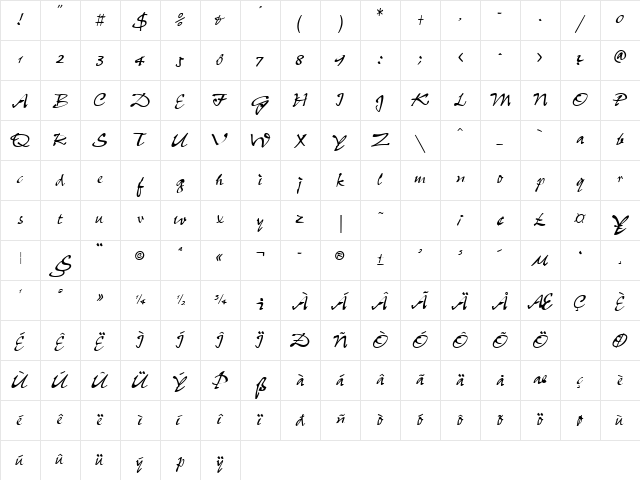
WheedleSSK Regular
WheedleSSK Family
Design Context for WheedleSSK
WheedleSSK is a composed and adaptable typeface that performs quietly and consistently across a wide range of design contexts.